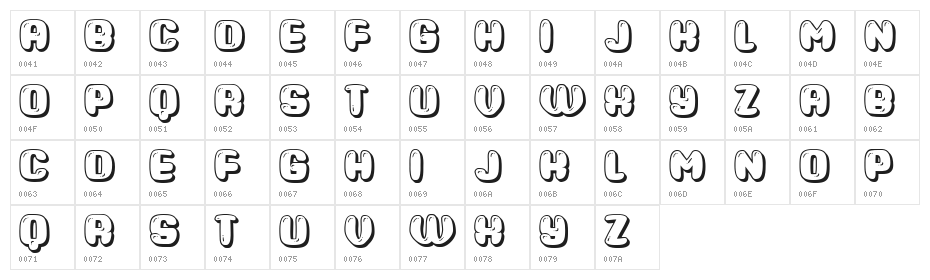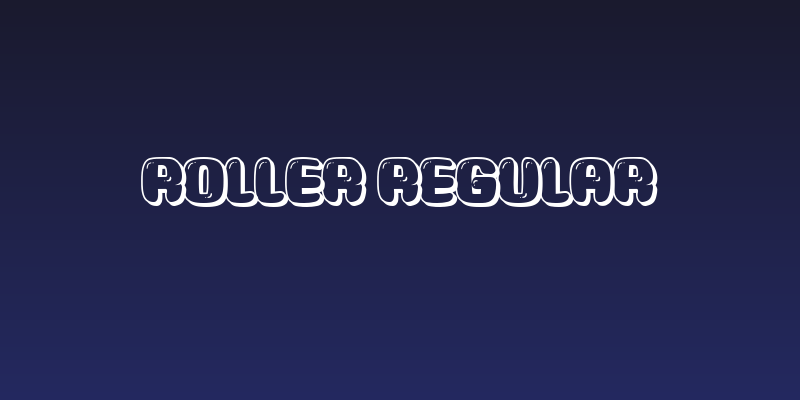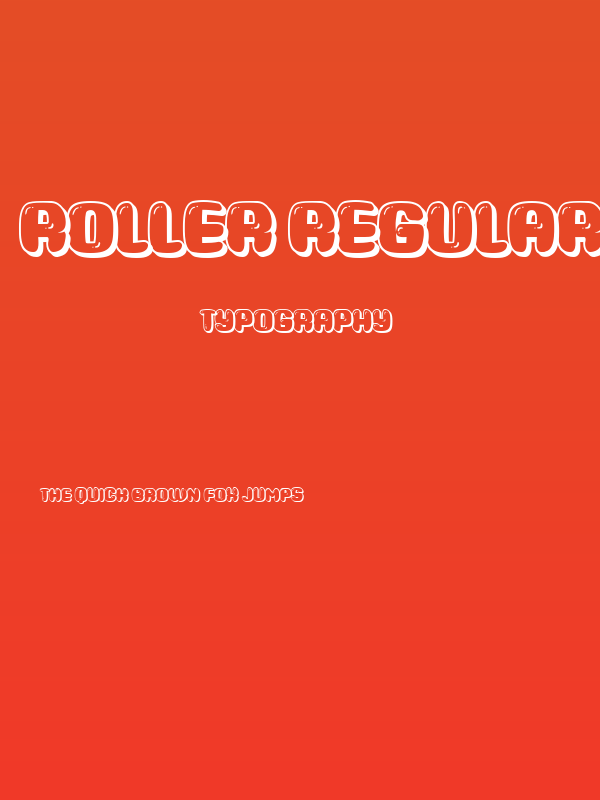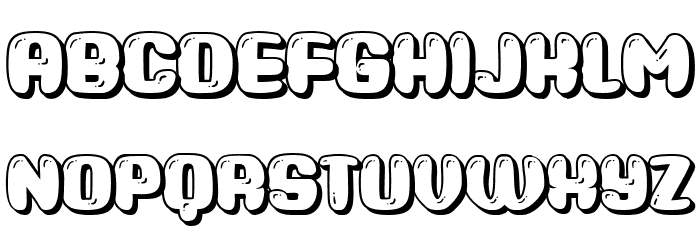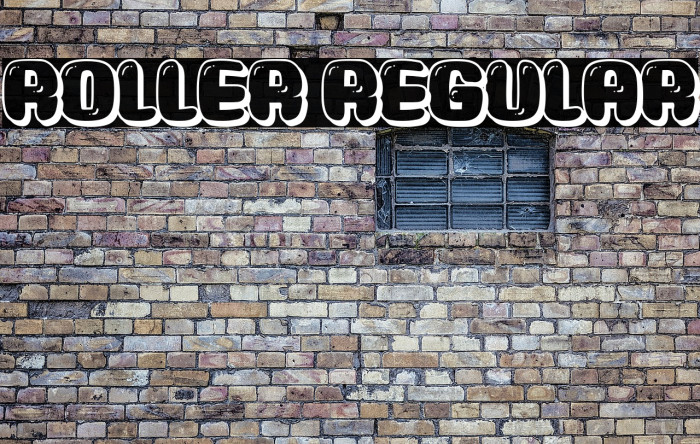
Roller Regular Font
Roller Regular Description
This font features a playful and bold design with a bubble-like appearance. Each character is outlined with a thick black border, giving it a three-dimensional effect. The letters are rounded and have a cartoonish style, making them stand out with a fun and energetic vibe. The font is consistent in its boldness, with uniform stroke widths that maintain a cohesive look across all characters. Its unique style is perfect for capturing attention and conveying a sense of whimsy and creativity.
| Overall Style | Playful, Cartoonish |
| Proposed Projects | Ideal for children's books, comic strips, playful branding, and party invitations. |